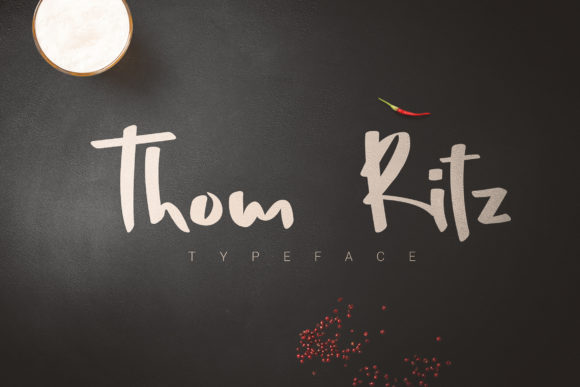
Behold the Thom Ritz Family Font - an artisanal masterpiece that will ignite your creativity and transform your designs into breathtaking works of art. Crafted with meticulous care by SmartDesigns, Thom Ritz is a script font family that oozes with elegance and charm, promising to add a touch of sophistication and uniqueness to all your projects.
With its three distinct styles, Thom Ritz offers a diverse range of expressive possibilities. Whether you seek a classic, formal look or a whimsical, playful vibe, Thom Ritz has the perfect style to match your vision. Its hand-drawn strokes exude a personal touch, adding an authentic and organic feel to your designs.
Step into the realm of Thom Ritz and unleash your imagination. Create stunning logos that capture attention and leave a lasting impression. Design eye-catching invitations and greeting cards that convey your heartfelt messages with grace and charm. Craft captivating social media posts that stand out from the crowd and engage your audience with irresistible visuals.
The Thom Ritz Family Font is more than just a collection of letters; it's an invitation to embark on a creative journey, to explore the boundless possibilities of artistic expression. Its versatility knows no bounds, making it the perfect choice for a wide range of projects, from branding and marketing materials to personal artwork and calligraphy.
With Thom Ritz, you'll discover a font that breathes life into your words, a font that transforms ordinary text into extraordinary works of art. Its timeless beauty and enduring charm will ensure that your designs remain captivating and relevant for years to come.
So why settle for ordinary fonts when you can elevate your designs with the Thom Ritz Family Font? Embrace the power of creativity and let your imagination soar. Dive into the world of Thom Ritz today and experience the joy of creating truly unforgettable designs.